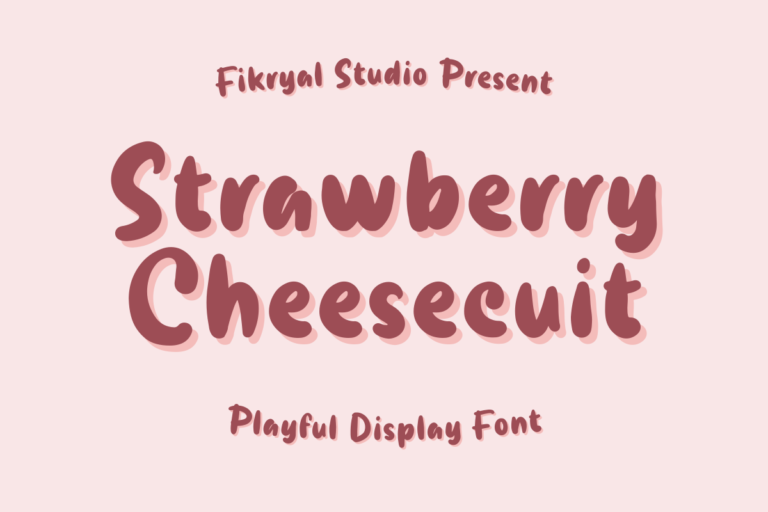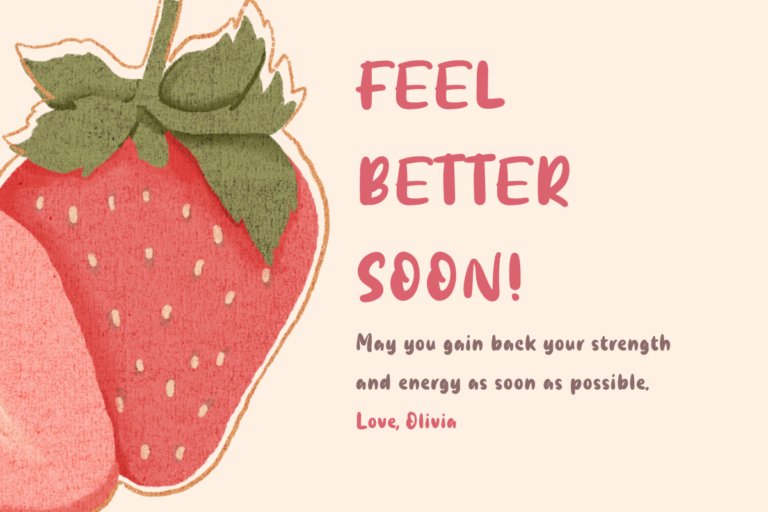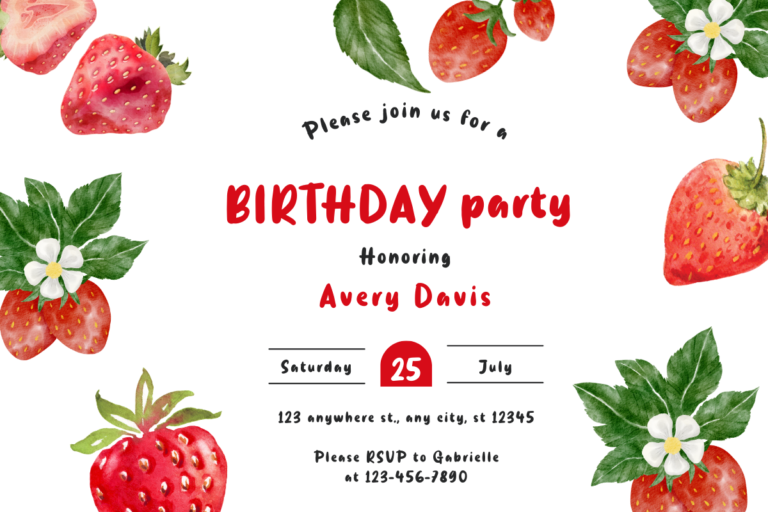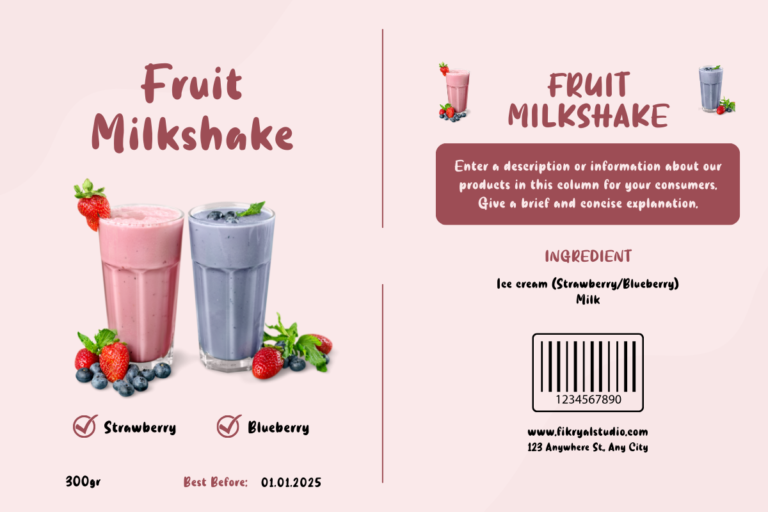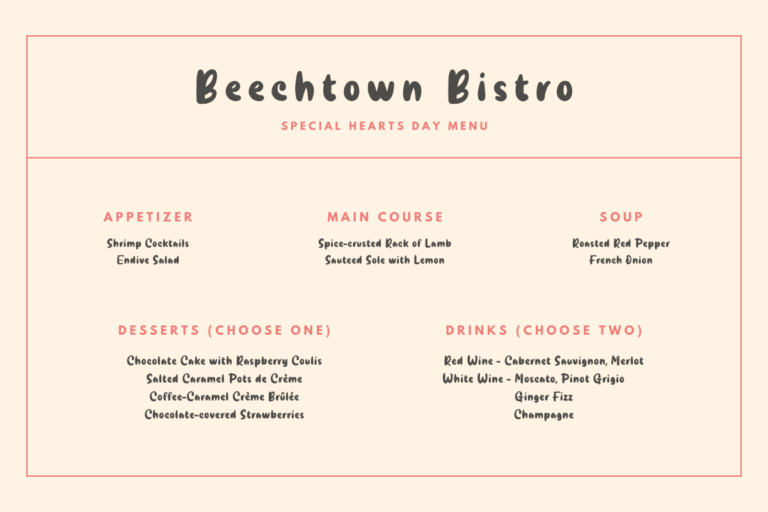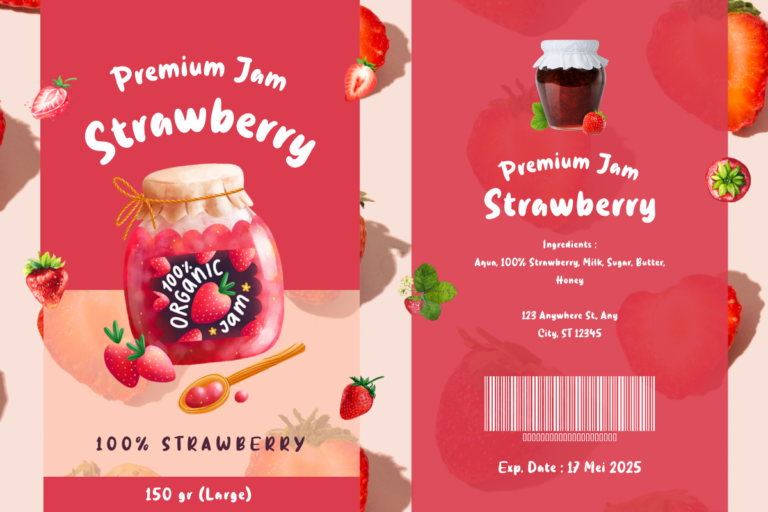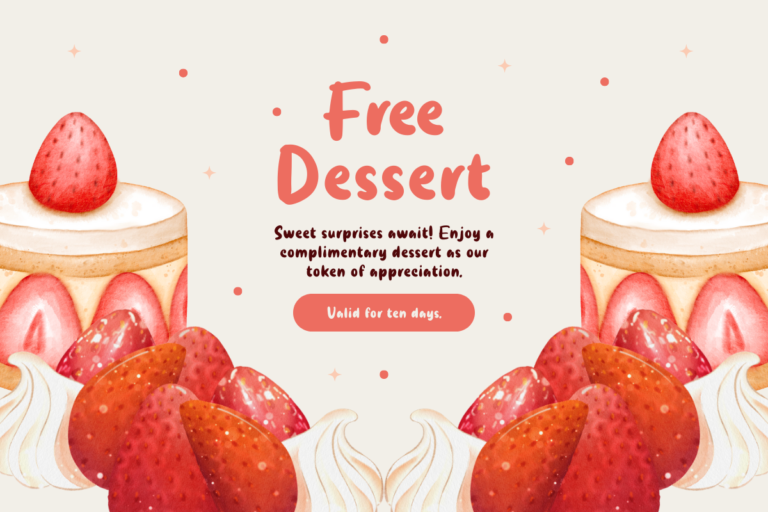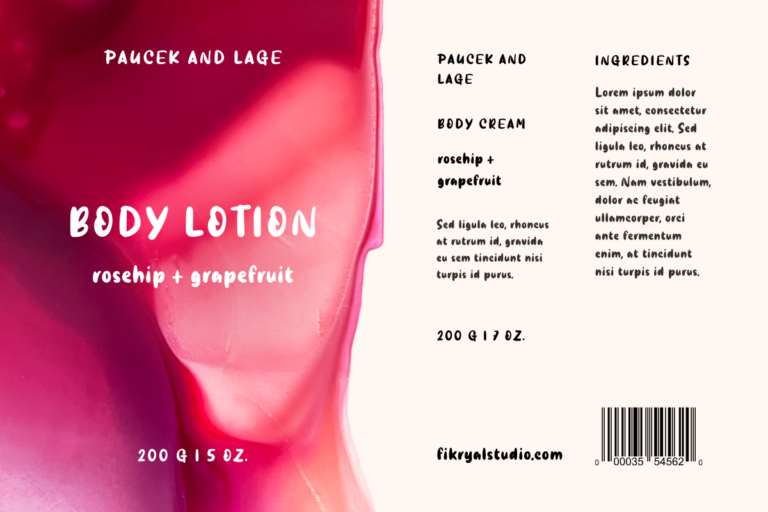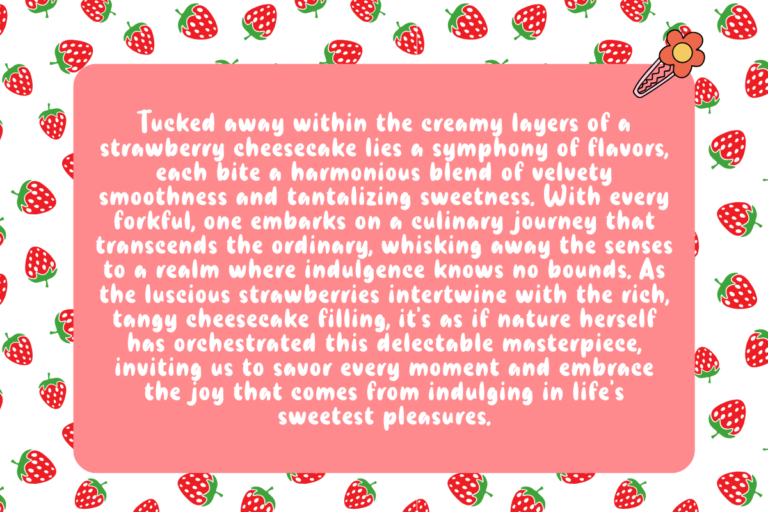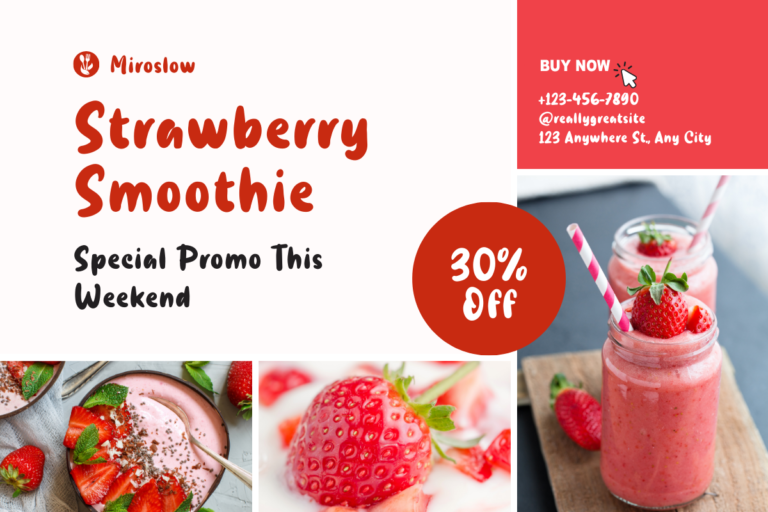
- Strawberry Cheesecuit – Playful Display
Strawberry Cheesecuit is a display font that combines fun and creativity in one tempting design. With a cheerful touch and unique character, this font gives a fun and charming feel to each of his works.
This font is suitable for various project purposes, from poster design, and pamphlets, to branding and product packaging. With its adorable style, Strawberry Cheesecuit makes a refreshing impression and attracts the attention of all types of audiences.
Not only that, the diversity in characters of this font ensures its quality to suit various types of projects. From striking headlines to stylish short sentences, Strawberry Cheesecuit will be a top choice for adding a cheerful and eye-catching touch to your designs.
So, if you are looking for a font that not only enhances your visual appearance but also gives unique character and charm to each of your works, Strawberry Cheesecuit is the perfect choice to fulfill all your design needs